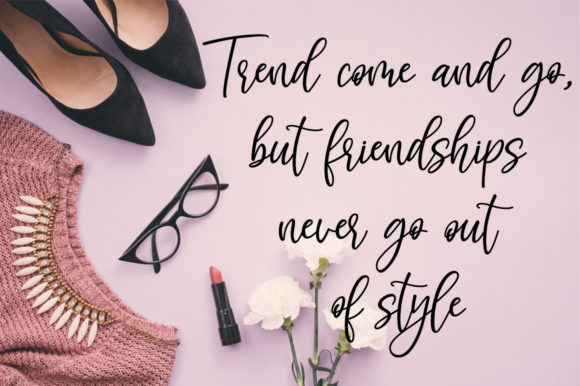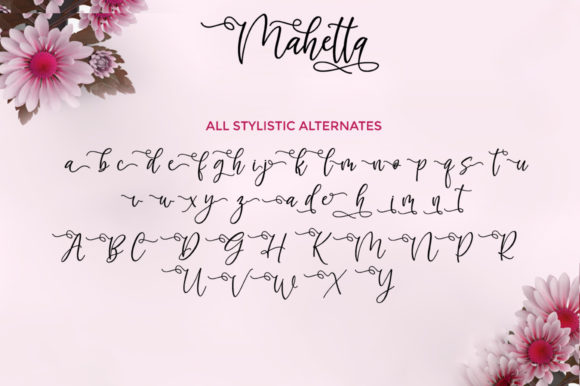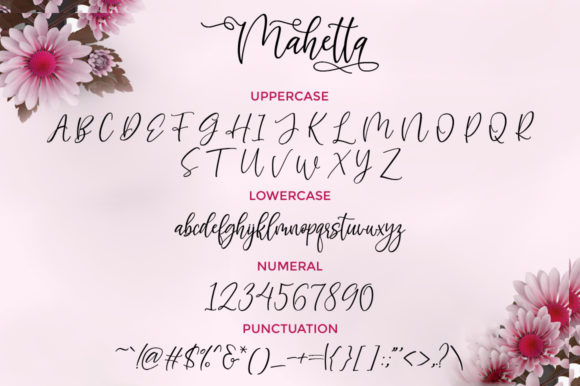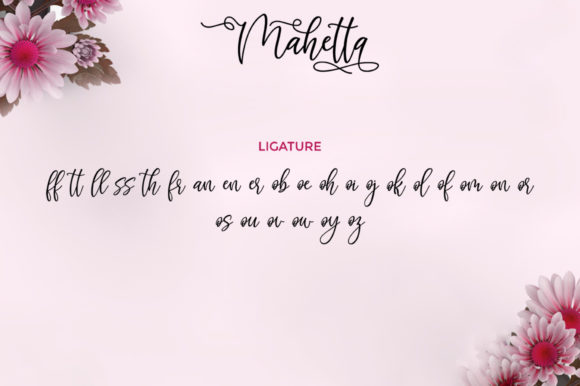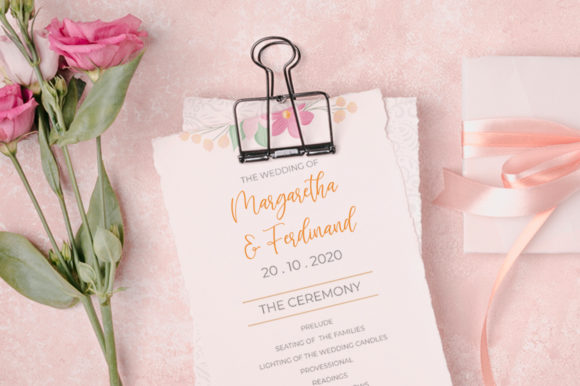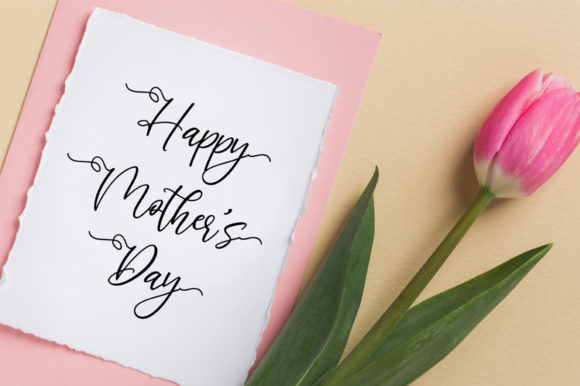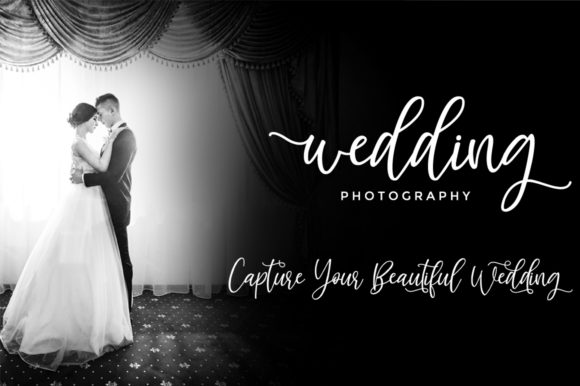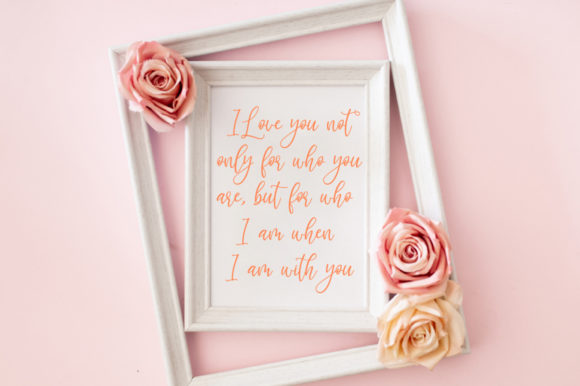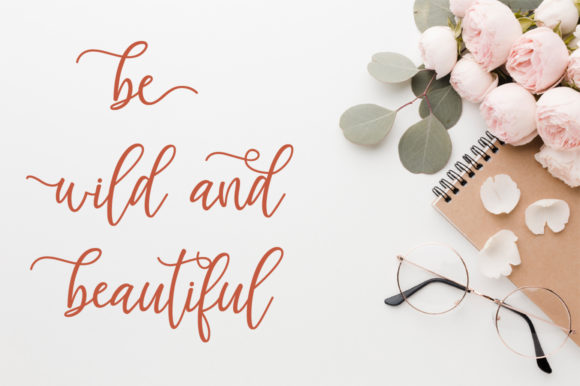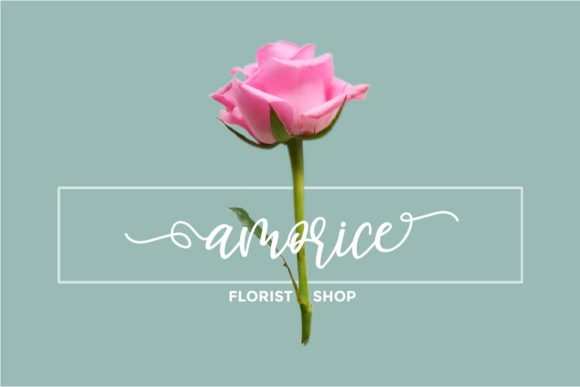
Mahetta Font
About Mahetta Font
Mahetta is a modern script font. The playful and beautiful characters make it the perfect font for creating stunning art. Fall in love with its authentic feel and use it to create gorgeous wedding invitations, beautiful stationary art, eye-catching social media posts, and cute greeting cards.